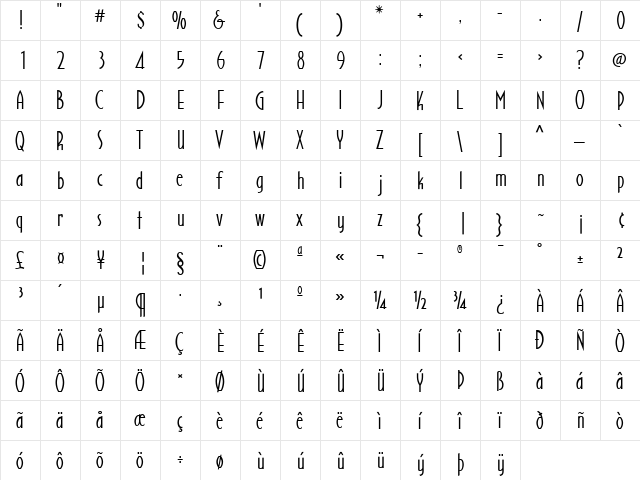
AviatorSG Regular
Design Context for AviatorSG Typeface
AviatorSG is a composed and adaptable typeface that performs quietly and consistently across a wide range of design contexts.